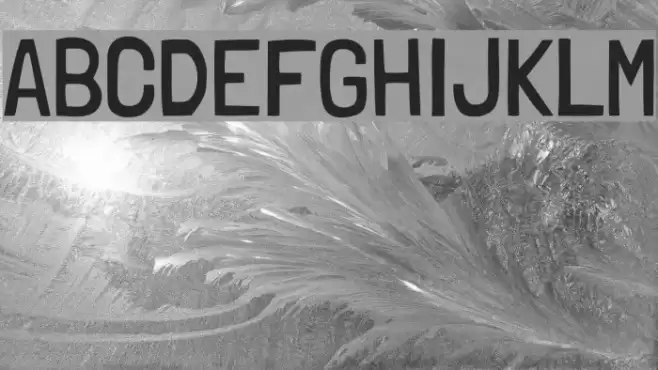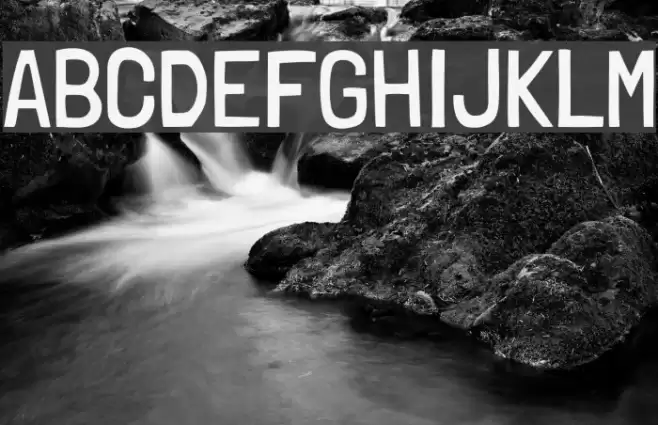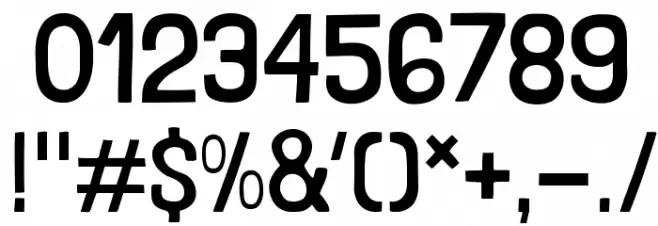
LondrinaBook-Regular Font
LondrinaBook-Regular Description
This font features a playful and slightly irregular design, giving it a unique and approachable character. The letters are bold and rounded, with a hand-drawn feel that adds a touch of whimsy. The uppercase and lowercase characters maintain a consistent style, while the numerals and special characters complement the overall aesthetic. The font's informal and friendly appearance makes it suitable for a variety of creative projects.
A playful, hand-drawn style font with bold, rounded characters from Uncategorized fonts.
- Proposed Projects: Ideal for children's books, playful branding, posters, and creative invitations.
- Overall Style: Playful, Informal